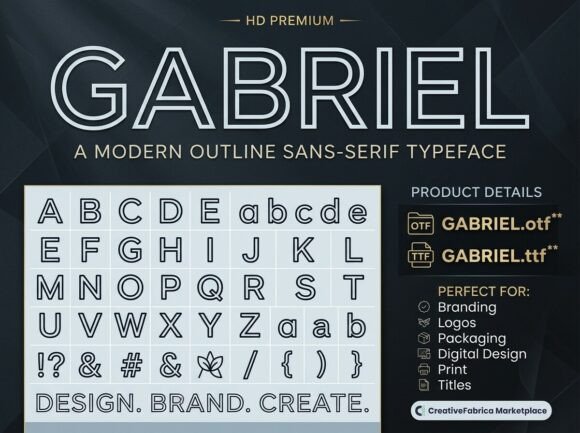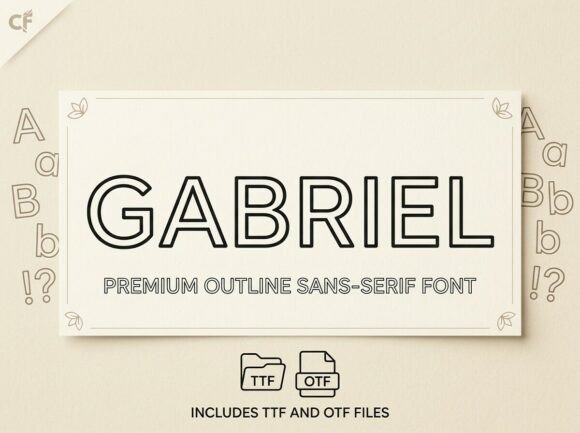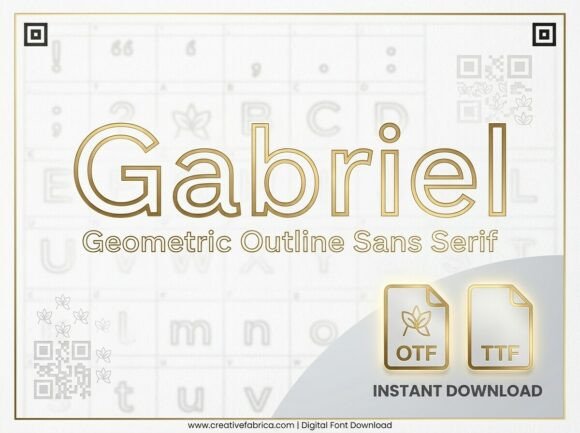
The Moment That Changes Everything: Where Designers Come Alive
Have you ever had one of those moments where the perfect font just clicks? The one that makes your design come alive and leaves everyone speechless? For designers, this moment is pure magic. It’s the culmination of creativity, passion, and a dash of genius. And for those who crave that “wow” factor, I’m excited to introduce you to the game-changing Gabriel Font.
This stunning decorative display font is designed to be the center of attention, featuring unique artistic elements and a strong visual personality. Whether you’re designing a modern poster, a unique brand identity, or eye-catching social media content, Gabriel Font adds an instant “wow” factor to any project. Its versatility and professional finish make it the perfect choice for bold headlines, artistic logos, and creative packaging.
Gabriel Font Key Features
- Font Family: Gabriel Font is a sans-serif font family designed for digital use.
- Size: The font family includes 6 weights ranging from Thin to Black, each with its unique characteristics.
- Resolution: Gabriel Font is optimized for high-resolution displays (Retina and above) and supports resolutions up to 4K.
- Unique Characteristics: Gabriel Font features a clean, modern design with subtle rounded corners and a high x-height, making it highly legible in digital environments.
- Language Support: Gabriel Font supports a wide range of languages, including Latin, Cyrillic, and Greek scripts.
Gabriel Font Review
Overall, Gabriel Font is a decent choice for a sans-serif font, but it has its limitations.
What works well: ✨
- High legibility: Gabriel Font is easy to read, even at small font sizes.
- Wide range of languages supported: Gabriel Font supports over 100 languages, making it a great option for multilingual projects.
- Professional look: Gabriel Font has a clean and modern design that’s perfect for corporate and business applications.
Limitations: ⚠️
- Not ideal for creative projects: Gabriel Font is a bit too generic and doesn’t have enough personality for creative projects.
- Limited character set: While Gabriel Font supports many languages, it doesn’t have a complete character set, which can lead to issues with certain characters.
- No bold or italic weights: Gabriel Font only comes in regular and light weights, which can make it difficult to create emphasis or add variety to text.
Overall, I’d say Gabriel Font is a solid choice for projects that require a clean and professional look, but it’s not the best option for more creative or complex projects.
Tips for Getting the Most Out of Gabriel Font
Use Gabriel Font for titles, headings, and body text to add a touch of sophistication to your designs. Experiment with different font sizes, colors, and styles to create a unique look. Combine Gabriel Font with other fonts to create a visually appealing design.
Use Gabriel Font for:
- Business cards and brochures
- Wedding and event programs
- Magazine and newspaper articles
Alternatives to Gabriel Font